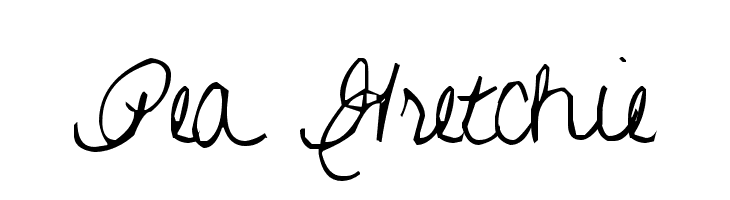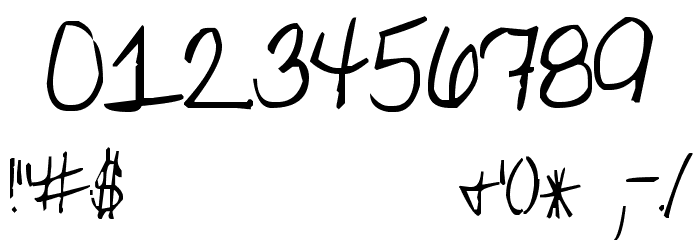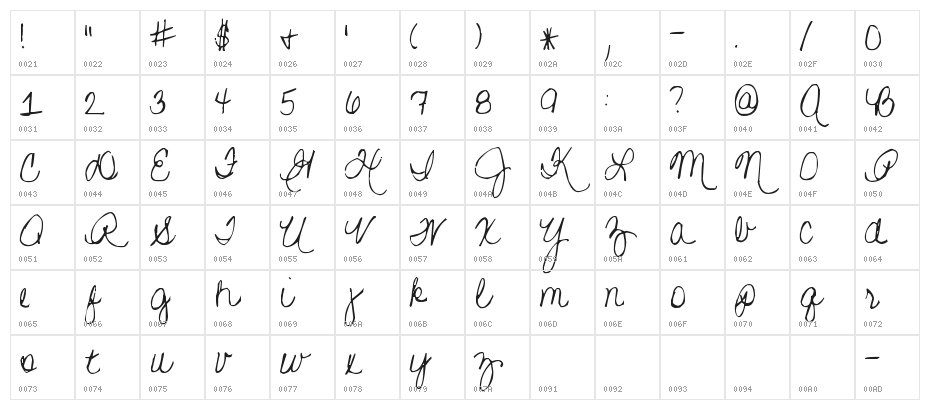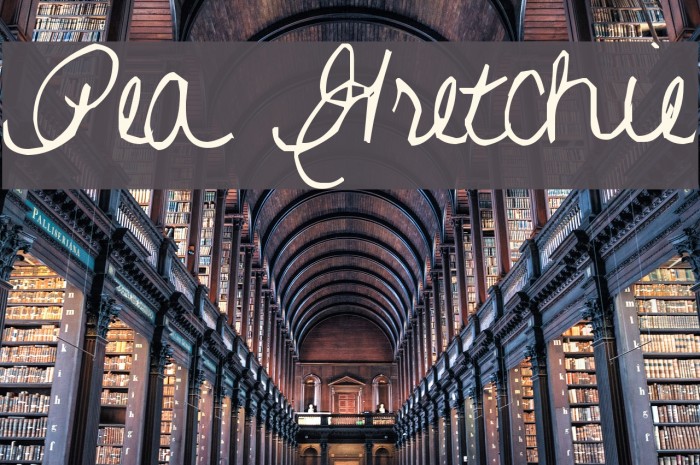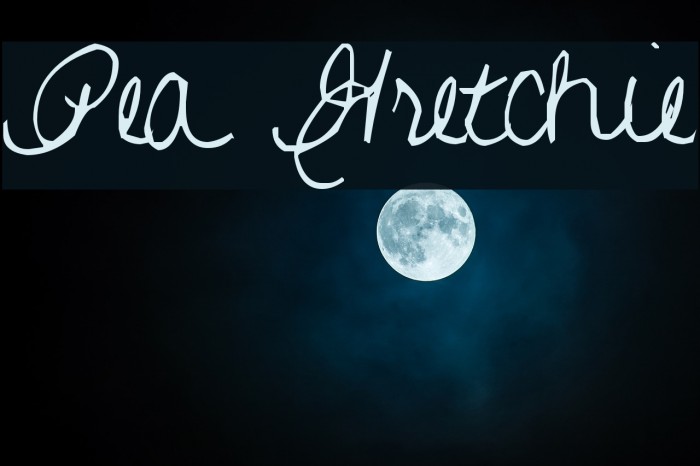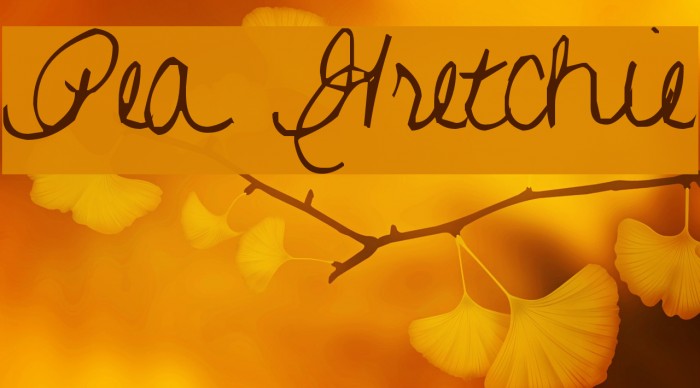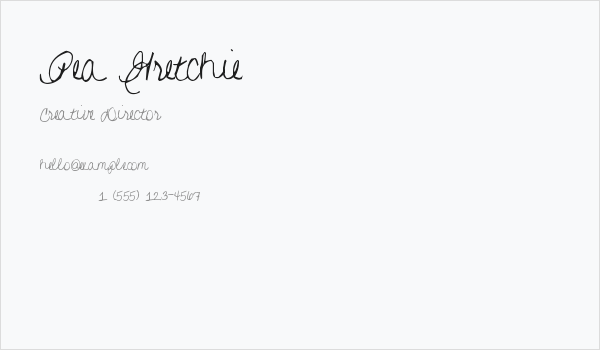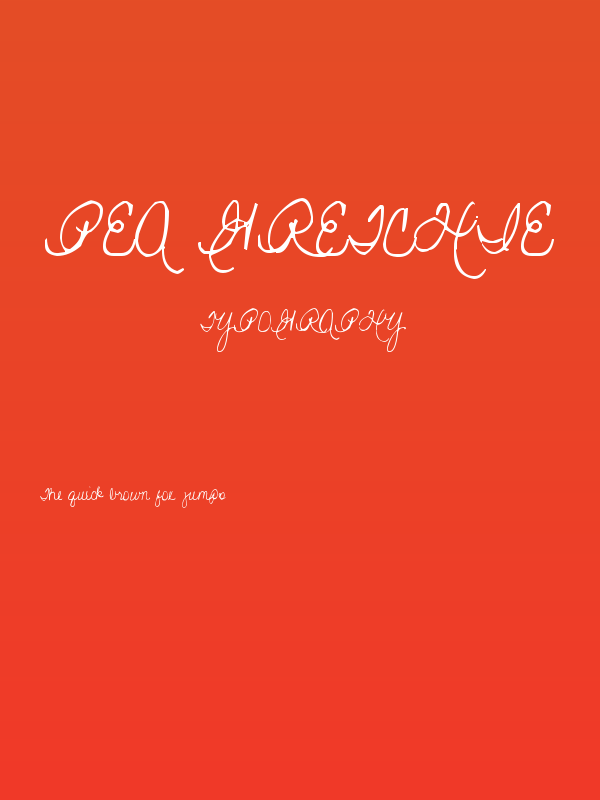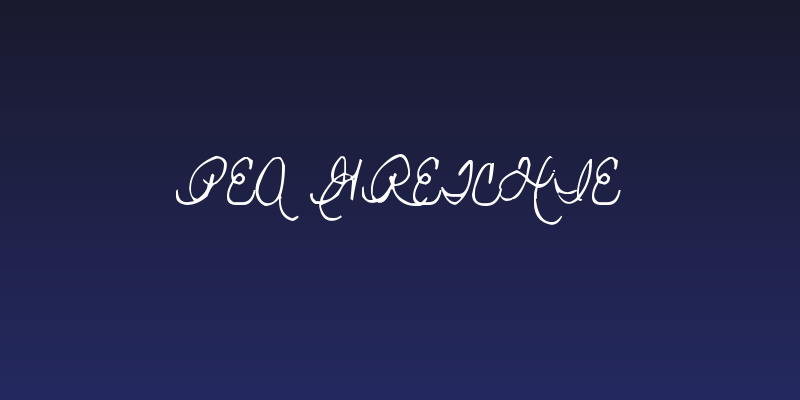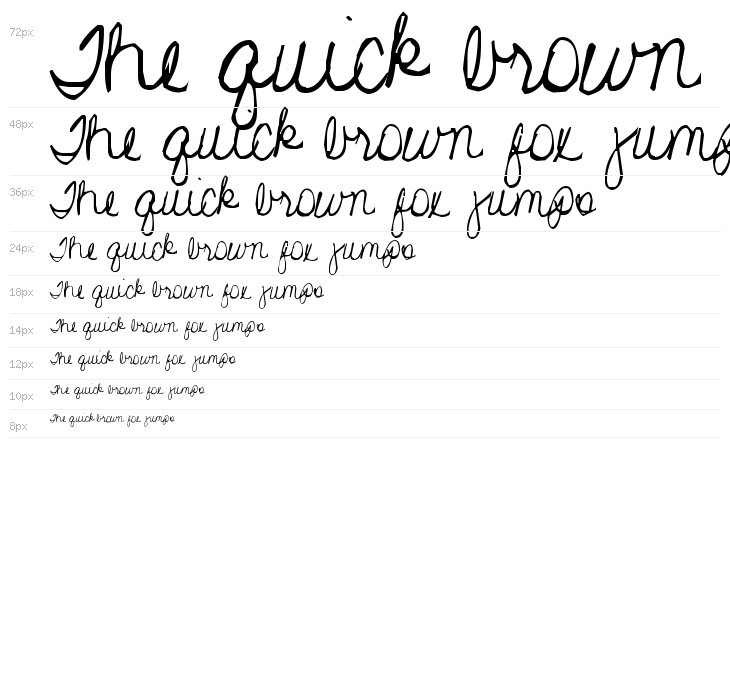
Pea Gretchie Font
Pea Gretchie Description
This font exudes a playful and whimsical charm, characterized by its handwritten script style. The letters are connected with smooth, flowing strokes that mimic the natural motion of handwriting. The uppercase letters are elegantly looped and slightly exaggerated, adding a touch of flair and personality. The lowercase letters maintain a consistent flow, with some letters featuring unique curls and twists that enhance the font's playful nature. The numbers are bold and clear, maintaining the same handwritten aesthetic. Special characters are creatively designed, fitting seamlessly with the overall style. This font is perfect for projects that require a personal, friendly touch.
| Overall Style | Whimsical |
| Proposed Projects | Ideal for greeting cards, invitations, personal branding, and creative projects that require a personal touch. |